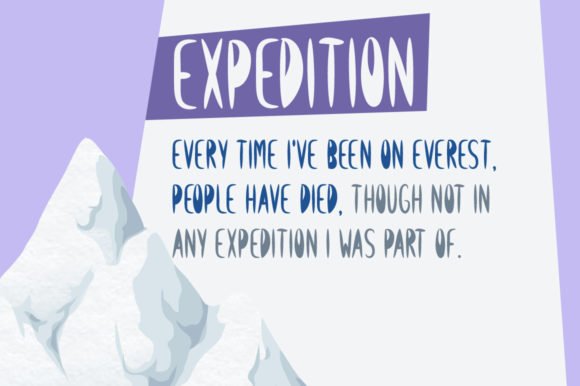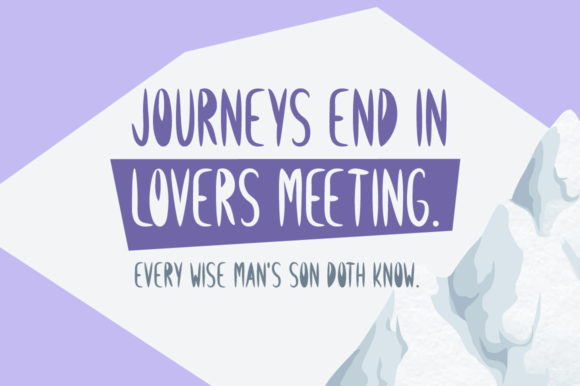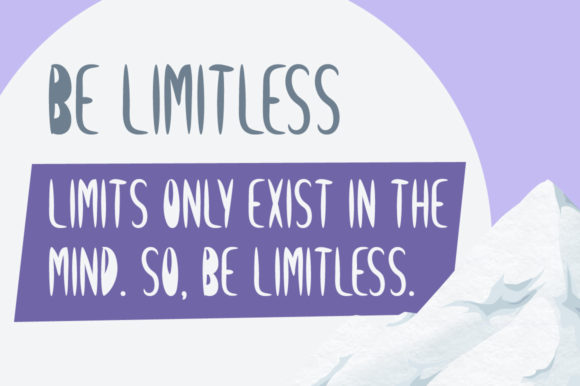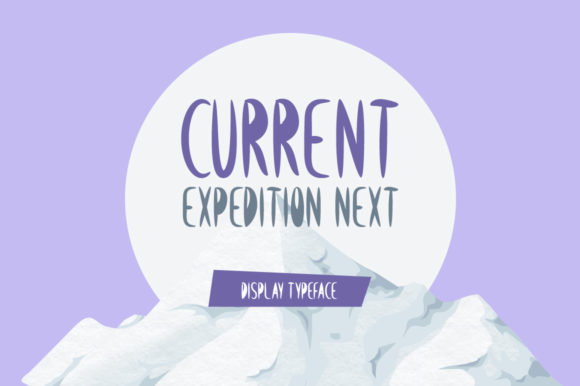
Introducing the Current Expedition Next Font: A Refreshing Sans Serif Display Font
The Current Expedition Next Font is a stunning sans serif display font that has taken the design world by storm. Its refreshing and modern aesthetic makes it perfect for use in both digital and print projects. Whether you’re a designer, craftsperson, or simply someone who appreciates great typography, this font is sure to impress.
Key Features of the Current Expedition Next Font
The Current Expedition Next Font boasts a range of features that make it an excellent choice for designers and crafters. Some of its key features include:
- Refreshing and Modern Aesthetic: The font’s sans serif design gives it a clean and contemporary look that’s perfect for projects that require a modern touch.
- Versatility: The Current Expedition Next Font can be used in a variety of projects, from digital designs to print materials, making it a versatile addition to any design library.
- Brand-able Appeal: The font’s unique design makes it perfect for use in branding and advertising projects, allowing designers to create memorable and impactful campaigns.
- Multi-Purpose: The font can be used for both headlines and body text, making it a great all-around choice for designers.
Perfect for Digital and Print Projects
One of the standout features of the Current Expedition Next Font is its ability to seamlessly transition between digital and print projects. Whether you’re designing a website, social media graphics, or print materials like brochures or posters, this font is sure to look great.
In digital projects, the font’s clean lines and modern aesthetic make it perfect for use in:
- Website headers and titles
- Digital advertising and marketing materials
In print projects, the font’s versatility shines through in:
- Brochures and flyers
- Posters and signage
Using the Current Expedition Next Font in Quotes and Body Text
While the Current Expedition Next Font is perfect for headlines and titles, it’s also well-suited for use in quotes and body text. Its clean design and modern aesthetic make it easy to read, even at smaller font sizes.
When using the font in body text, designers can take advantage of its:
- Legibility: The font’s clear design makes it easy to read, even for extended periods of time.
- Versatility: The font can be used in a variety of contexts, from articles and blog posts to product descriptions and marketing materials.
Tips for Using the Current Expedition Next Font
To get the most out of the Current Expedition Next Font, designers and crafters can follow these tips:
- Experiment with Font Sizes: The font’s versatility means it can be used at a range of font sizes, from large headlines to smaller body text.
- Pair it with Other Fonts: The Current Expedition Next Font pairs well with other sans serif fonts, making it easy to create visually appealing combinations.
- Use it in Branding and Advertising: The font’s unique design makes it perfect for use in branding and advertising projects, allowing designers to create memorable and impactful campaigns.
| Font Name | Current Expedition Next Font |
| Author | Shattered Notion |
The Current Expedition Next Font is a refreshing and stunning sans serif display font that’s perfect for use in both digital and print projects. Its versatility, brand-able appeal, and multi-purpose design make it an excellent choice for designers and crafters. Whether you’re looking to create a memorable brand identity or simply want to add a touch of modern elegance to your designs, this font is sure to impress.